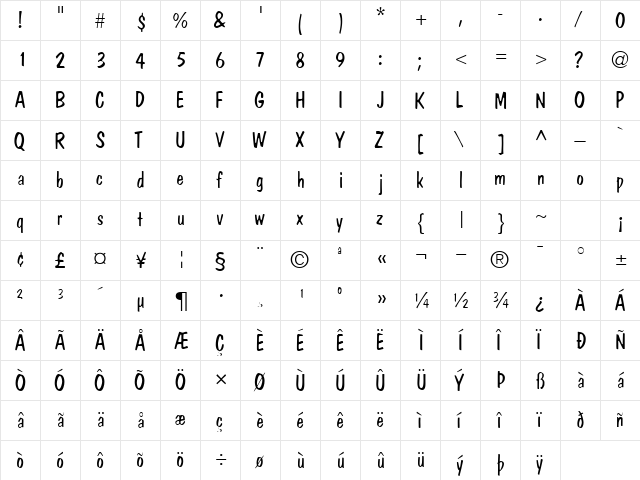
JargonLightSSK Regular Font Preview
JargonLightSSK Regular
Design Context for JargonLightSSK Typeface
JargonLightSSK is a composed and adaptable typeface that performs quietly and consistently across a wide range of design contexts. The delicate stroke weight brings airiness and refinement to layouts.